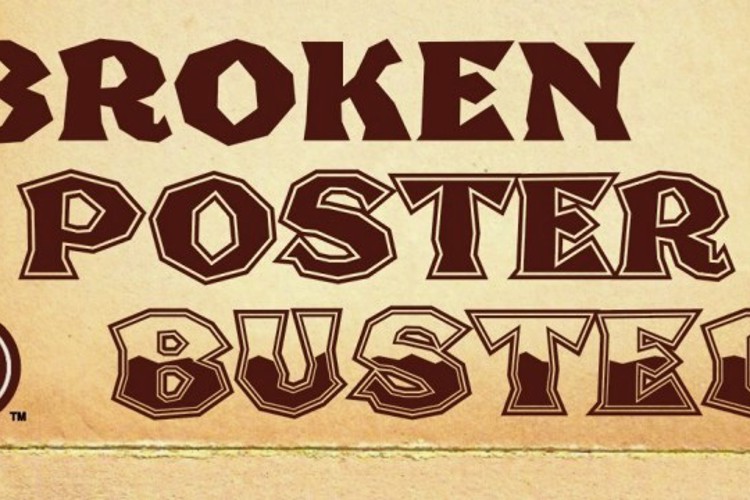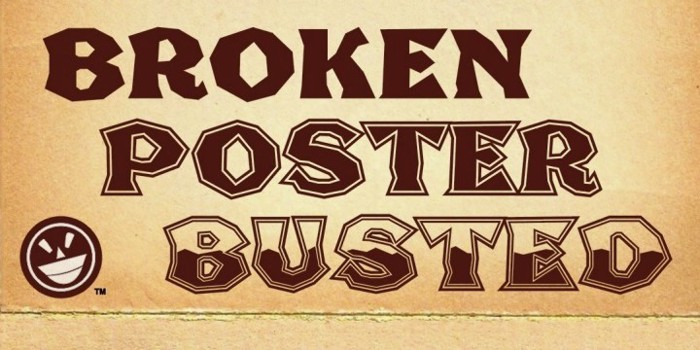
Broken Poster Font
The huge jags and sharp angles of legendary sign painter Frank H. Atkinson's Broken Poster have returned with a vengeance. At a hundred plus years and counting, Broken Poster isn't exactly a new kid on the block. What is new is that
it now comes in three fun variations: Broken Poster, Broken Poster Tour and Broken Poster Tour Busted. Break out your vector program and get ready to have some fun.
Broken Poster was the name given to this letter style by Frank Atkinson in his book on sign lettering. My guess is he was refering to the angular nature of the lines of the glyphs. Alf Becker also did a sample of the same style calling it German Poster.